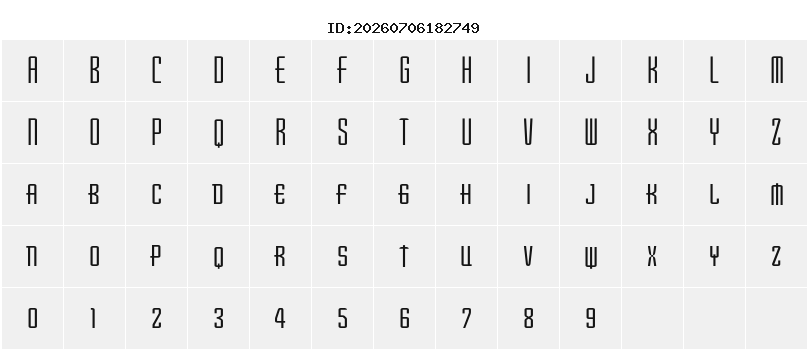
• Font Name: Destijl Expert
• Full Font Name: DestijlExpert
• PostScript Name: DestijlExpert
About Destijl Expert.otf
Destijl Expert.otf is a modern, elegant sans-serif font designed for ultimate readability and visual harmony. Perfect for branding, headlines, web design, and print materials.